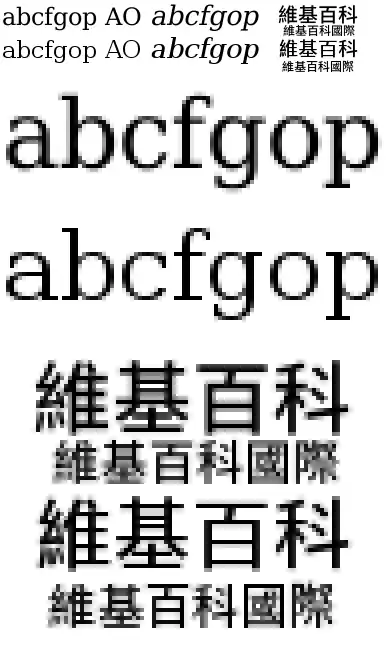
A font test without hinting (upper rows) and with hinting (lower rows) at both true size and 400% scaling. Note the increased edge contrast with the hinted text but more faithful character shape and more natural inter-character spacing in the unhinted text.
Font hinting (also known as instructing) is the use of mathematical instructions to adjust the display of an outline font so that it lines up with a rasterized grid. At low screen resolutions, hinting is critical for producing clear, legible text. It can be accompanied by antialiasing and (on liquid crystal displays) subpixel rendering for further clarity.
For the purpose of on-screen text display, font hinting designates which primary pixels are interpolated to more clearly render a font. Hints are usually created in a font editor during the typeface design process and embedded in the font. A font can be hinted either automatically (through processed algorithms based on the character outlines) or set manually. Most font editors are able to do automatic hinting, and this approach is suitable for many fonts. However, high-quality commercial fonts are often manually hinted to provide the sharpest appearance on computer displays. Verdana is one example of a font that contains a large amount of hinting data, much of which was accomplished manually by type engineer Tom Rickner.[1]
Implementations
In the TrueType font format, released in 1991 by Apple Inc, hinting invokes tables of font data used to render fonts properly on screen. One aspect of TrueType hinting is grid-fitting, which modifies the height and width of font characters to line up to the set pixel grid of screen display. The open-source FreeType 2 font rendering engine uses an auto-hinter when such hinting data are not present or their use is restricted by a software patent.[2] As of 2011, the FreeType website states that the relevant font hinting patents have now all expired, and hinting is now enabled in FreeType by default.[2]
Guidelines
According to the TrueType Reference Manual,[3] font instructors (those performing font hinting) must balance the following two constraints when hinting a font:
• At small sizes, chance effects should not be allowed to magnify small differences in the original outline design of a glyph.
• At large sizes, the subtlety of the original design should emerge.[3]
The reference manual suggests that, for screen viewing, fonts should be readable at 9 pixels per em at 72 pixels per inch. Particular attention should be paid to the cap height, x-height, and baseline, so that the font retains its normal character while not producing exaggerated effects at small sizes.
High-DPI displays
With the advent of high-DPI displays (generally considered to be displays with more than 300 pixels per inch), font hinting has become less relevant, as aliasing effects become un-noticeable to the human eye. As a result Apple's Quartz text renderer, which is targeted for Apple's Retina displays, now ignores font hint information completely.[4][5]